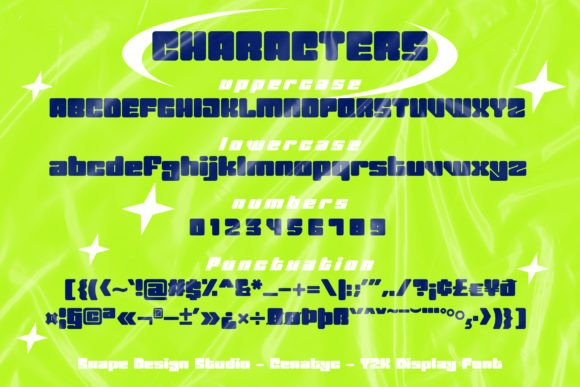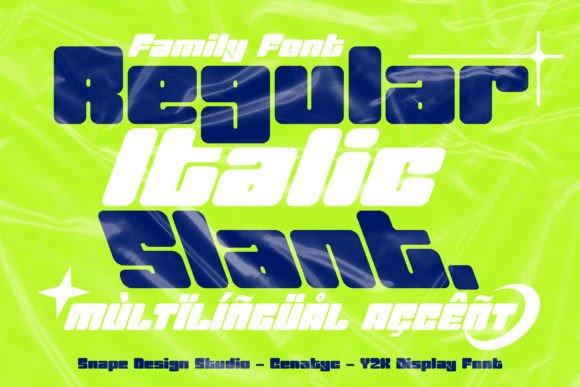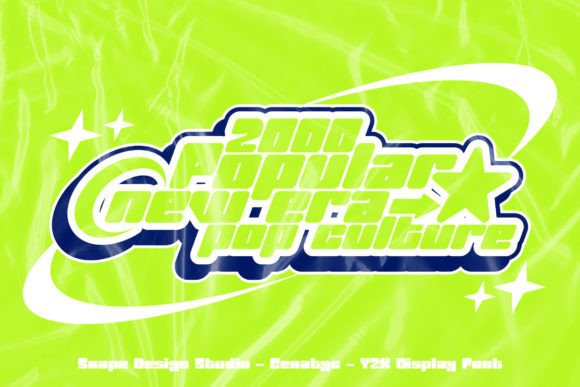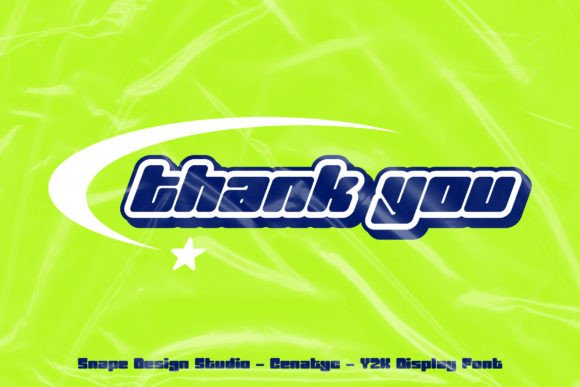
Cenatyc Font: Elevate Your Designs with a Futuristic Twist
In the realm of digital design, fonts play a pivotal role in conveying the essence and aesthetic of a project. Among the myriad of fonts available, Cenatyc stands out as a unique and captivating choice for designers and crafters looking to infuse their work with a futuristic vibe. This article delves into the characteristics, inspirations, and applications of the Cenatyc font, highlighting its potential to transform your creative projects.
The Essence of Cenatyc Font
Cenatyc is a futuristic display font that draws heavy inspiration from the Y2K design era, a period marked by a distinctive fusion of technology, music, and pop culture. This font encapsulates the spirit of that era, making it an ideal choice for projects that aim to evoke a sense of nostalgia for the late 1990s and early 2000s, while also embracing a forward-thinking approach.
Inspirations from Y2K and Beyond
The Y2K era was characterized by rapid technological advancements, the rise of digital music, and a vibrant pop culture scene. These elements have significantly influenced the Cenatyc font, imbuing it with a futuristic yet retro charm. The font’s design reflects the sleekness and innovation of the digital age, making it perfect for themes related to technology, digital media, space, and galaxy explorations.
Applications of Cenatyc Font
The versatility of Cenatyc font is one of its most appealing attributes. Its unique design makes it suitable for a wide range of applications, including:
- Technology and Digital Projects: Cenatyc’s futuristic appeal makes it a natural fit for projects related to tech, digital media, and innovation.
- Space and Galaxy Themes: The font’s otherworldly charm is perfect for designs that explore the vastness of space and galaxy-themed projects.
- Movies, Documentaries, and Films: Add a touch of futurism to your movie titles, posters, and promotional materials.
- Logos and Branding: Stand out in the digital landscape with a logo that incorporates the Cenatyc font, conveying innovation and forward-thinking.
- Posters and Games: Elevate your posters, game titles, and in-game text with a font that captures attention and evokes a sense of adventure.
- Book Covers and Headlines: Make your book covers, magazine headlines, and article titles pop with a dose of futurism.
Why Choose Cenatyc Font?
Incorporating Cenatyc into your designs can significantly enhance their appeal and make them stand out in a crowded digital landscape. Here are a few reasons why Cenatyc should be your go-to font for futuristic and Y2K-inspired projects:
- Unique Aesthetic: Cenatyc offers a distinctive look that blends nostalgia with futurism, making your projects memorable.
- Versatility: Its wide range of applications makes Cenatyc a valuable addition to any designer’s toolkit.
- Attention-Grabbing: The font’s futuristic appeal is sure to capture attention, making it perfect for titles, headlines, and any design element you want to stand out.
Cenatyc font is more than just a typeface; it’s a design statement that combines the nostalgia of the Y2K era with a vision for the future. Whether you’re working on a technology startup’s branding, a sci-fi movie poster, or a digital art project, Cenatyc offers the perfect blend of style, innovation, and nostalgia. By incorporating Cenatyc into your creative process, you’re not just choosing a font; you’re embracing a design language that speaks to both the past and the future. So, add Cenatyc to your creative arsenal and watch your designs soar to new heights of innovation and aesthetic appeal.